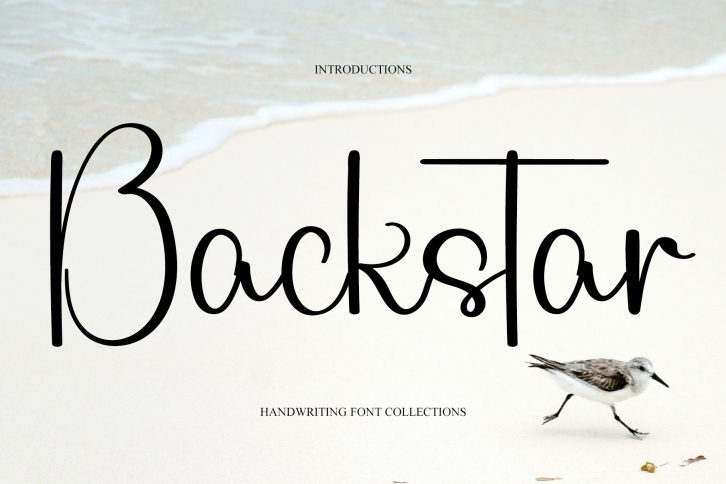
Backstar is a stylish and dainty script font. It is suitable for any projects such as : logos, branding projects, label, photography, watermark, special events, and all your other lovely projects that need a beautiful script taste. This font is PUA encoded which means you can access all of the glyphs and swashes with ease.